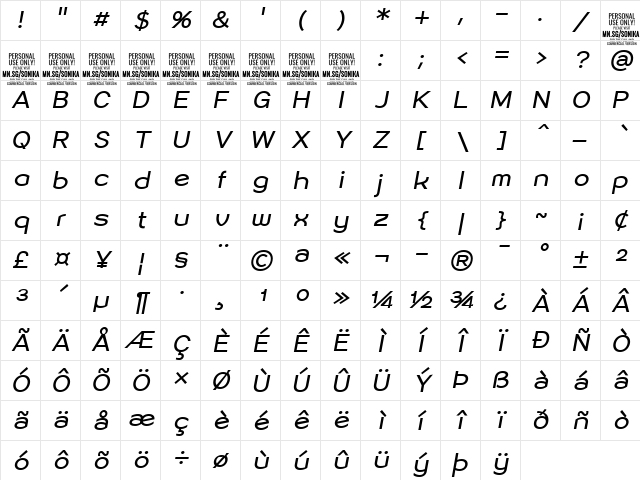
Complete Sonika PERSONAL USE Regular Italic glyph index. Displaying only characters natively supported by Sonika PERSONAL USE Regular Italic font.
Sonika PERSONAL USE is a composed and adaptable typeface that performs quietly and consistently across a wide range of design contexts. The slanted form adds forward momentum and visual energy.
Pro Tip: Use Sonika PERSONAL USE for emphasis, pull quotes, and subheadings where its slanted energy can add rhythm to the layout.